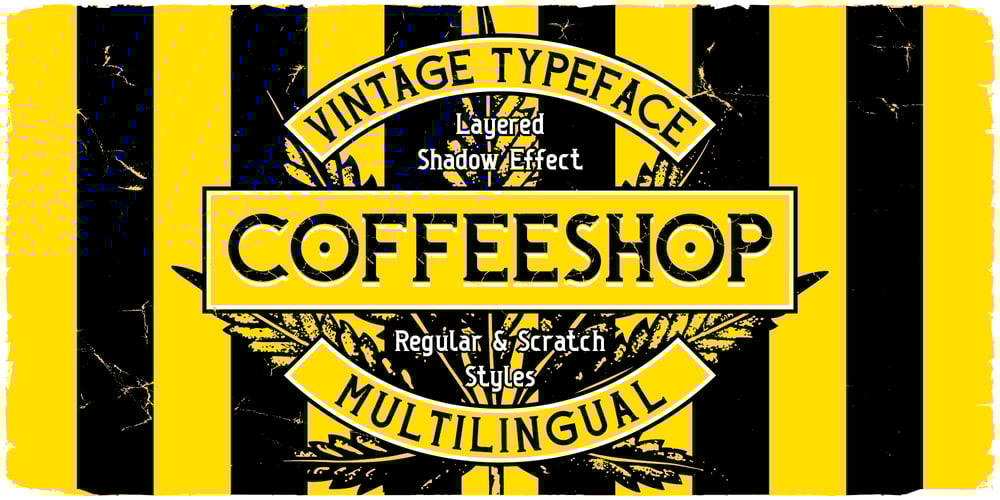
Coffeeshop
Coffeeshop font
Coffeeshop Font Family was designed by Oleg Voznyy and published by Vozzy. Coffeeshop contains 6 styles and family package options. Introducing the new 2024 font “Coffee Shop”! This is a strict and at the same time playful serif font. It will look great on any of your designs – T-shirts, posters, promotional materials. Introducing the new font “Coffee Shop”! This is a strict and at the same time playful serif font. It will look great on any of your designs – T-shirts, posters, promotional materials. The font contains many additional characters, there is multilingual support, as well as styles with support for layers – Shadow FX and Scratch Shadow FX.